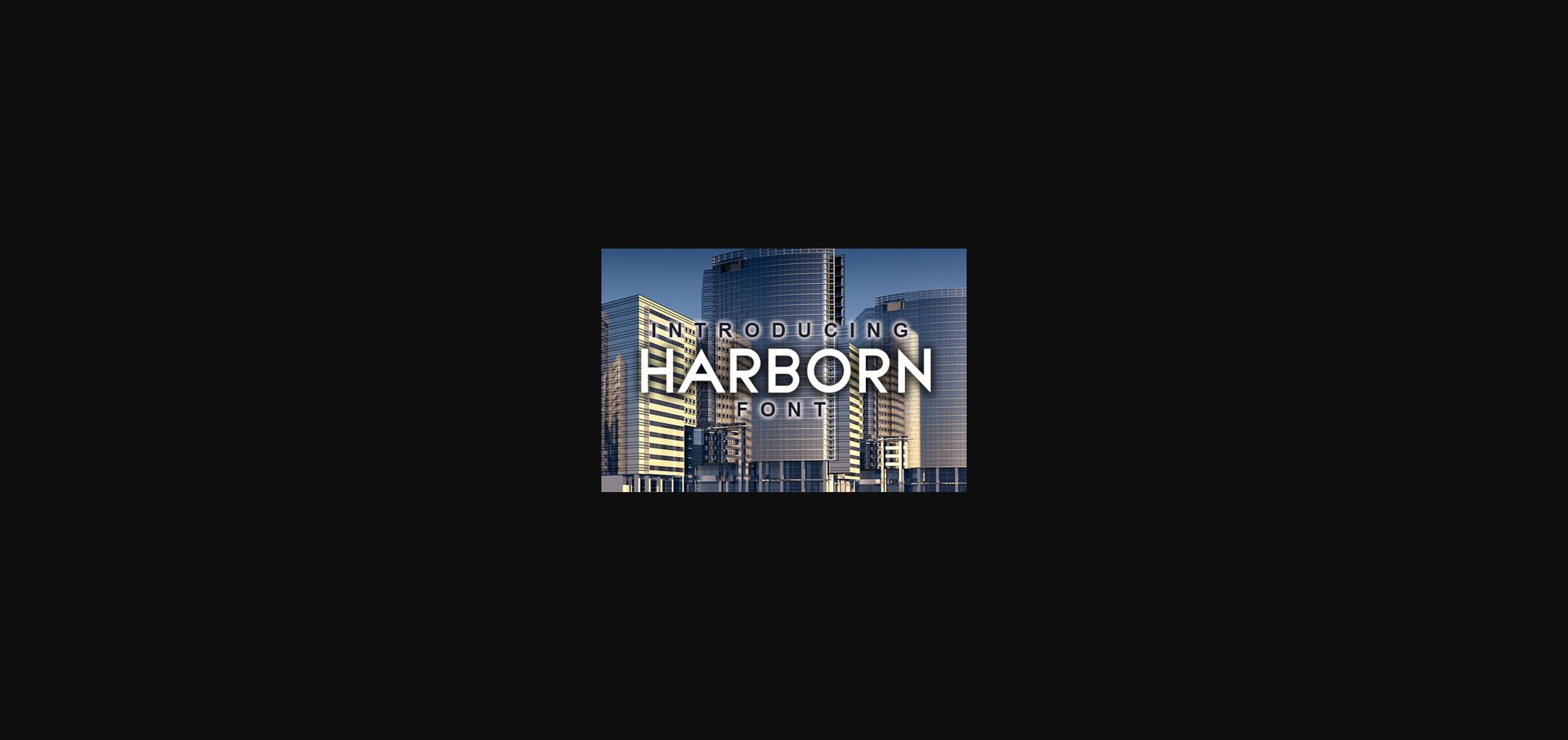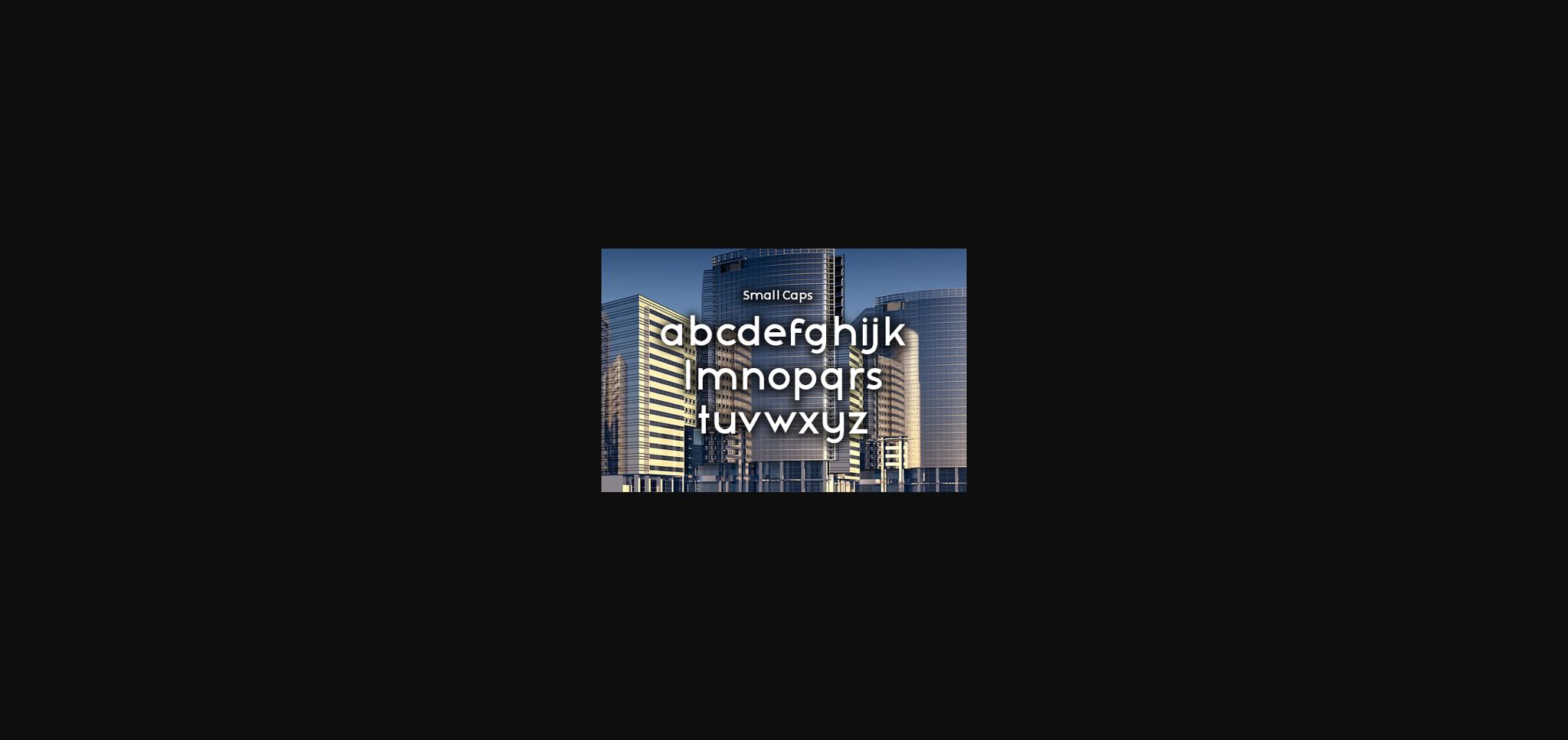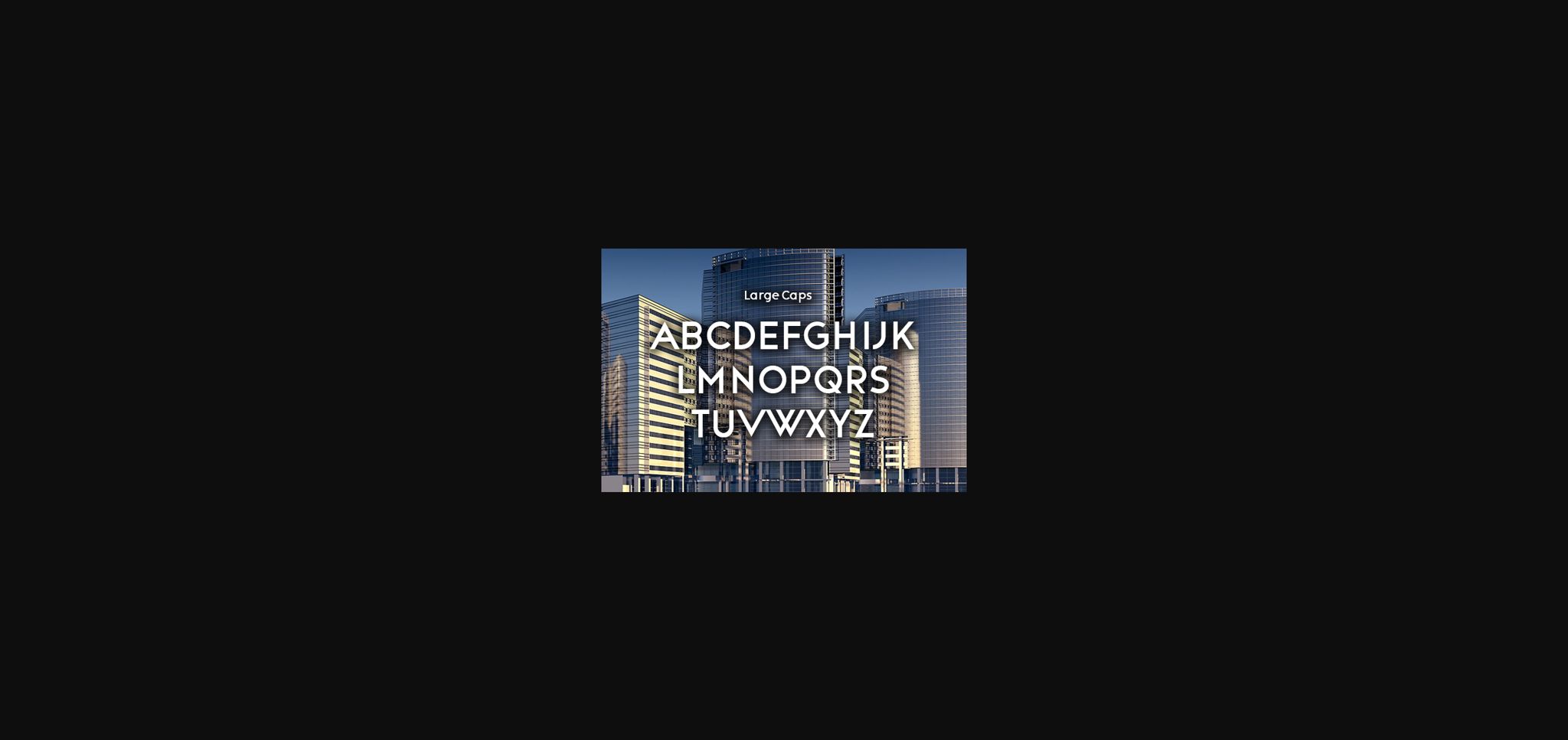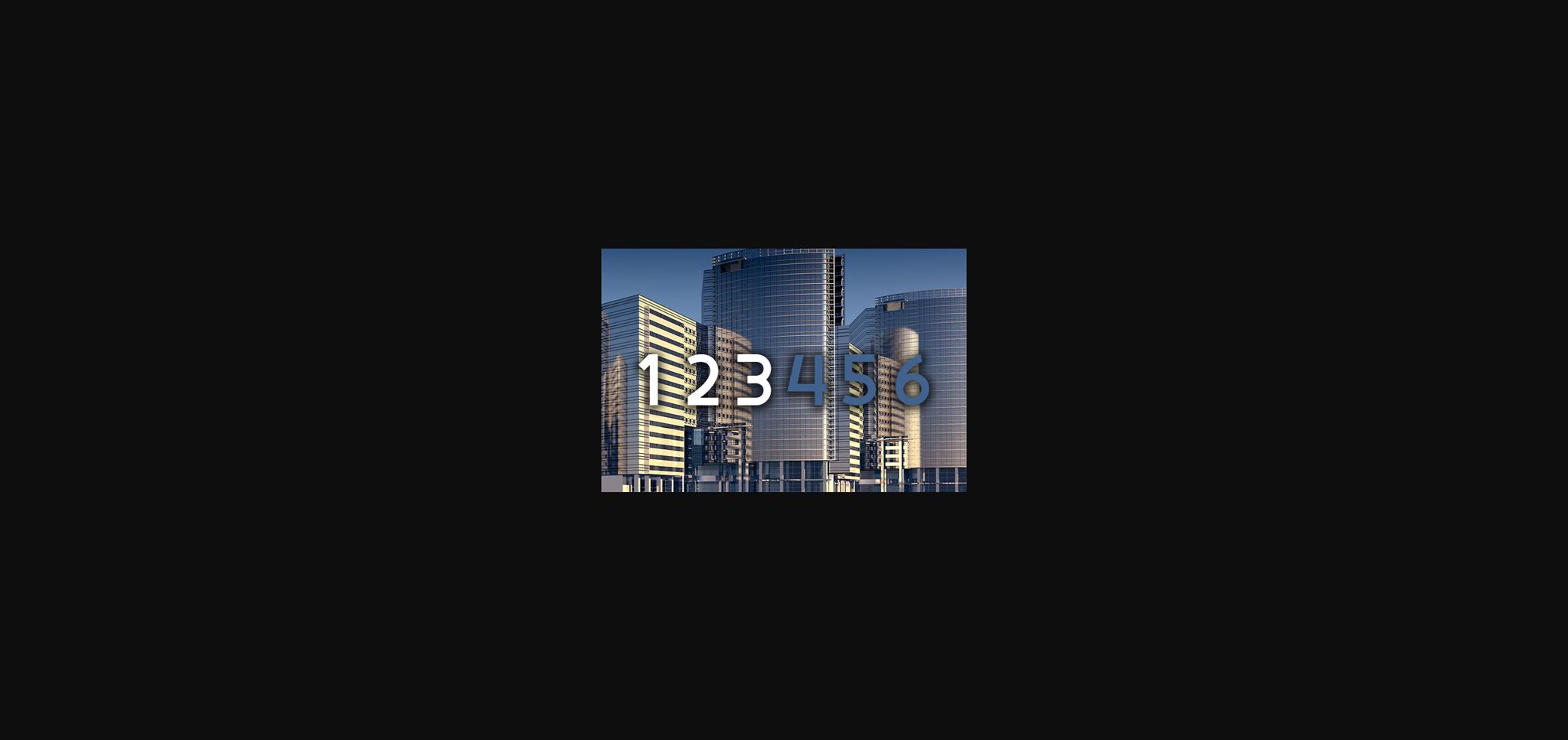
About Harborn Font
Harborn is a charming Sans Serif font with a neat look. This minimalist and clean vibe can easily apply to your favorite designs such as book covers, magazines, social media posts, invitations, and so much more!